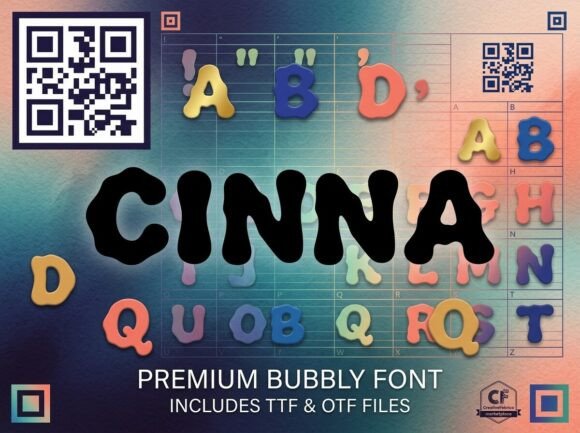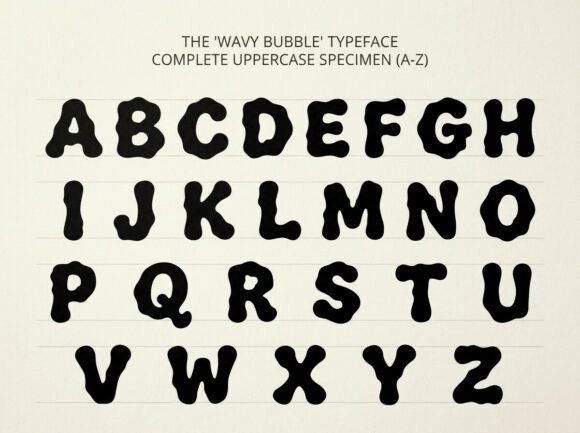
Elevate Your Designs with Cinna Font: The Ultimate Display Typeface
Are you looking for a font that can add a touch of energy and playfulness to your designs? Look no further than Cinna Font, a high-energy display typeface that’s perfect for creative projects that demand a bold and bubbly personality. In this article, we’ll dive into the unique features of Cinna Font and explore how it can elevate your designs to new heights.
The Inspiration Behind Cinna Font
Cinna Font is designed to capture the essence of a “bouncy-and-bright” soul, making it perfect for designs that require a friendly and approachable tone. The font’s ultra-thick, rounded letterforms are uniquely characterized by rhythmic, organic curves that give it a soft-yet-sturdy structural weight. This distinctive design bridges the gap between retro 70s nostalgia and modern youth-centric branding, making it an excellent choice for designers who want to create a vintage-meets-modern aesthetic.
Key Features of Cinna Font
Cinna Font boasts several key features that make it an excellent addition to any designer’s toolkit:
- Ultra-thick, rounded letterforms: Cinna Font’s bold and rounded letterforms make it perfect for creating eye-catching headlines and titles.
- Rhythmic, organic curves: The font’s rhythmic curves give it a playful and energetic feel that’s sure to capture the attention of your audience.
- Soft-yet-sturdy structural weight: Cinna Font’s unique structural weight makes it both delicate and robust, allowing it to adapt to a wide range of design applications.
Cinna Font is the premier choice for a variety of creative projects, including:
- Independent toy store identities: Add a playful touch to your toy store’s branding with Cinna Font’s bold and bubbly personality.
- Boutique confectionery logos: Make your sweet treats stand out with Cinna Font’s friendly and approachable tone.
- Creative streetwear labels: Give your streetwear brand a modern and youthful vibe with Cinna Font’s energetic and playful design.
- High-impact social media headers: Create bold and eye-catching social media headers with Cinna Font’s ultra-thick, rounded letterforms.
Why Choose Cinna Font?
With so many fonts available, why choose Cinna Font for your design projects? Here are just a few reasons:
- Unique and distinctive design: Cinna Font’s bold and playful design sets it apart from other fonts on the market.
- Versatile and adaptable: Cinna Font can be used in a wide range of design applications, from logos and branding to social media headers and more.
- Easy to read and understand: Despite its bold and playful design, Cinna Font is easy to read and understand, making it perfect for designs that require a clear and concise message.